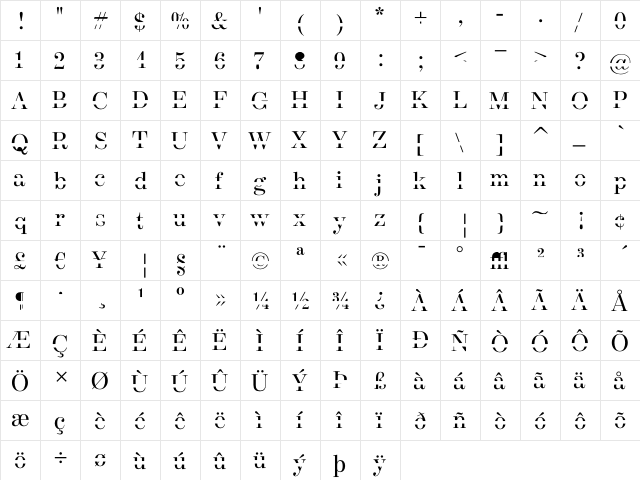
Chomage Medium
Design Context for Chomage Typeface
Chomage is a composed and adaptable typeface that performs quietly and consistently across a wide range of design contexts.